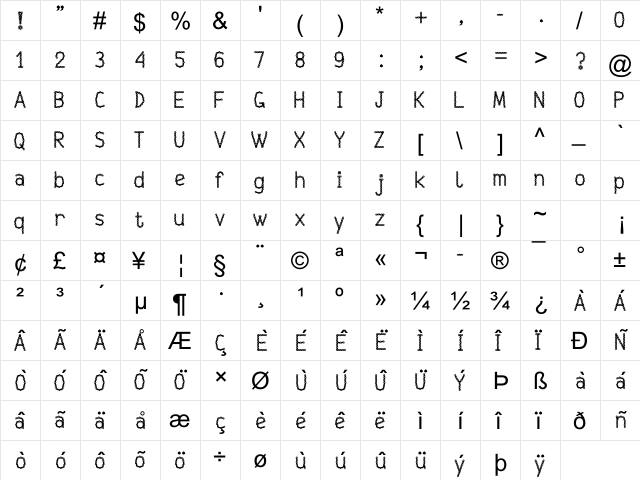
Wiponielintizer150 Regular Font Preview
Wiponielintizer150 Regular
Wiponielintizer150 Regular Font Details
| Foundry | Lab-room for viper78 Clerical, Vlad Viperov |
| Designer | Lab-room for viper78 Clerical Office - viper78 aka Vlad Viperov, Volgograd 2013 |
Design Context for Wiponielintizer150 Typeface
Wiponielintizer150 takes a measured approach to typography — its balanced proportions and neutral character make it a reliable workhorse for both digital and print work.